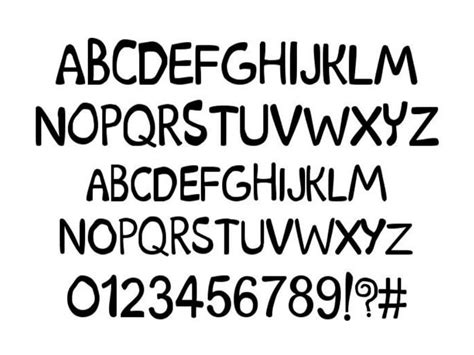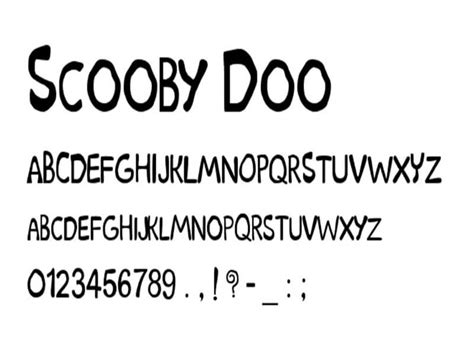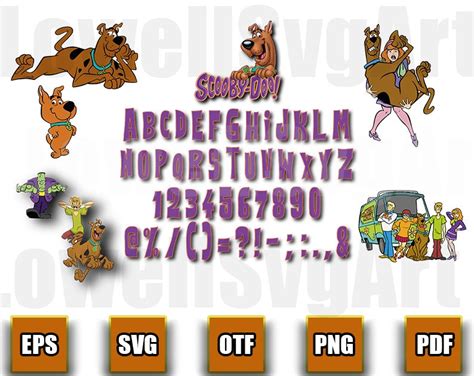
SCOOBY DOO FONT
The world of typography is vast and diverse, offering a myriad of fonts to suit various tastes and purposes. Among the myriad of font choices, the Scooby Doo font has emerged as a unique and playful option, capturing the essence of the iconic cartoon character. This font is not just a simple imitation but a creative interpretation that brings the beloved mystery-solving dog to life through its letters and characters.
The Scooby Doo font is a fun and whimsical creation, designed to evoke the spirit of the cartoon series. With its curved lines and playful curves, this font adds a touch of nostalgia and a sense of adventure to any text it adorns. It is a custom font that has gained popularity among fans and designers alike, offering a unique way to incorporate the beloved character into various projects.
One of the key benefits of using the Scooby Doo font is its ability to capture attention and evoke a sense of fun. Whether used in invitations, posters, or online content, this font adds a playful twist to any design, making it ideal for projects aimed at a younger audience or those seeking a light-hearted approach. Its unique style ensures that your message stands out and leaves a lasting impression.